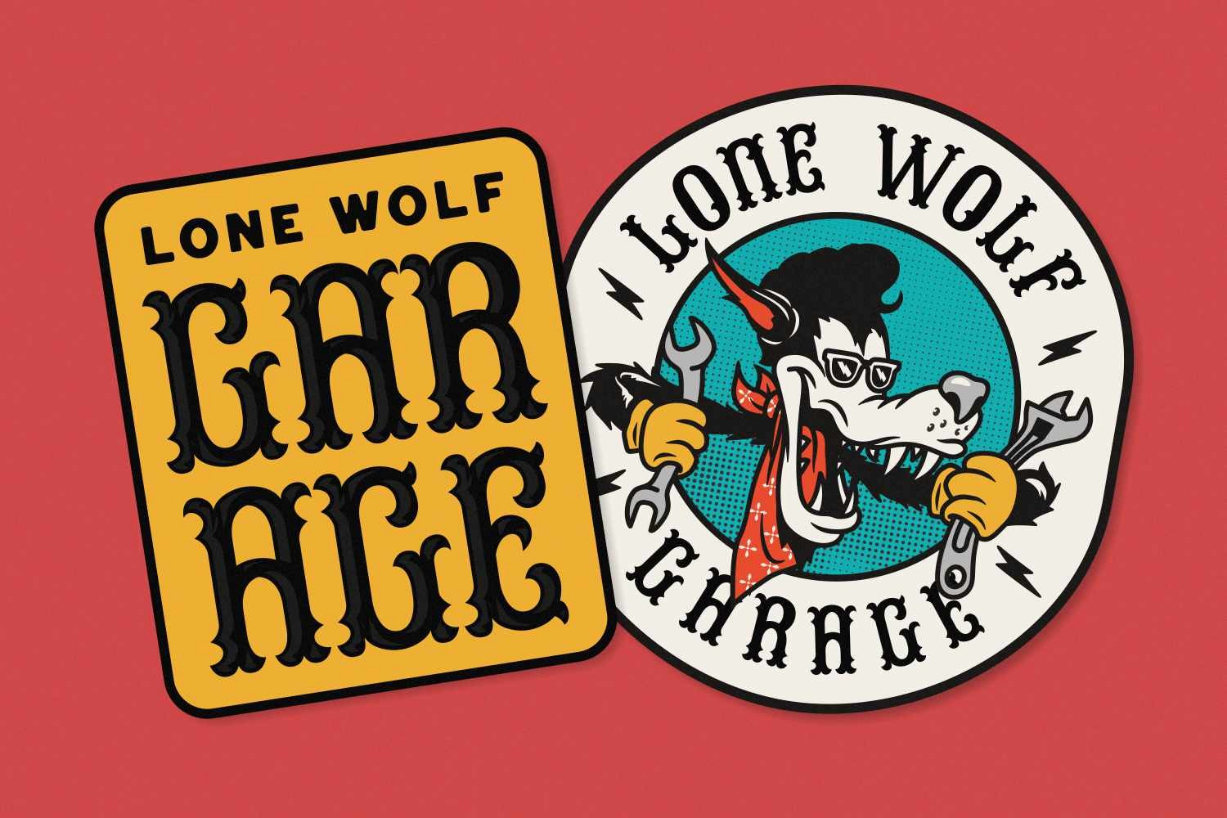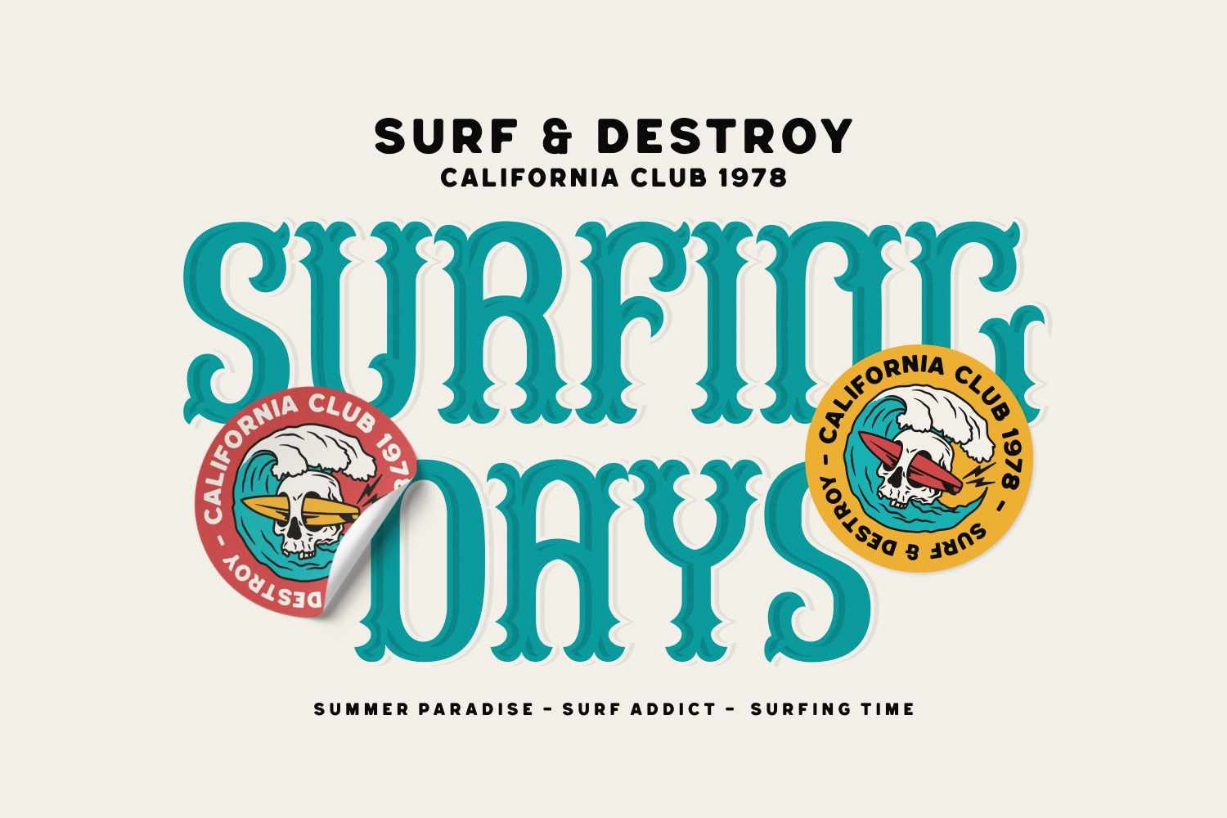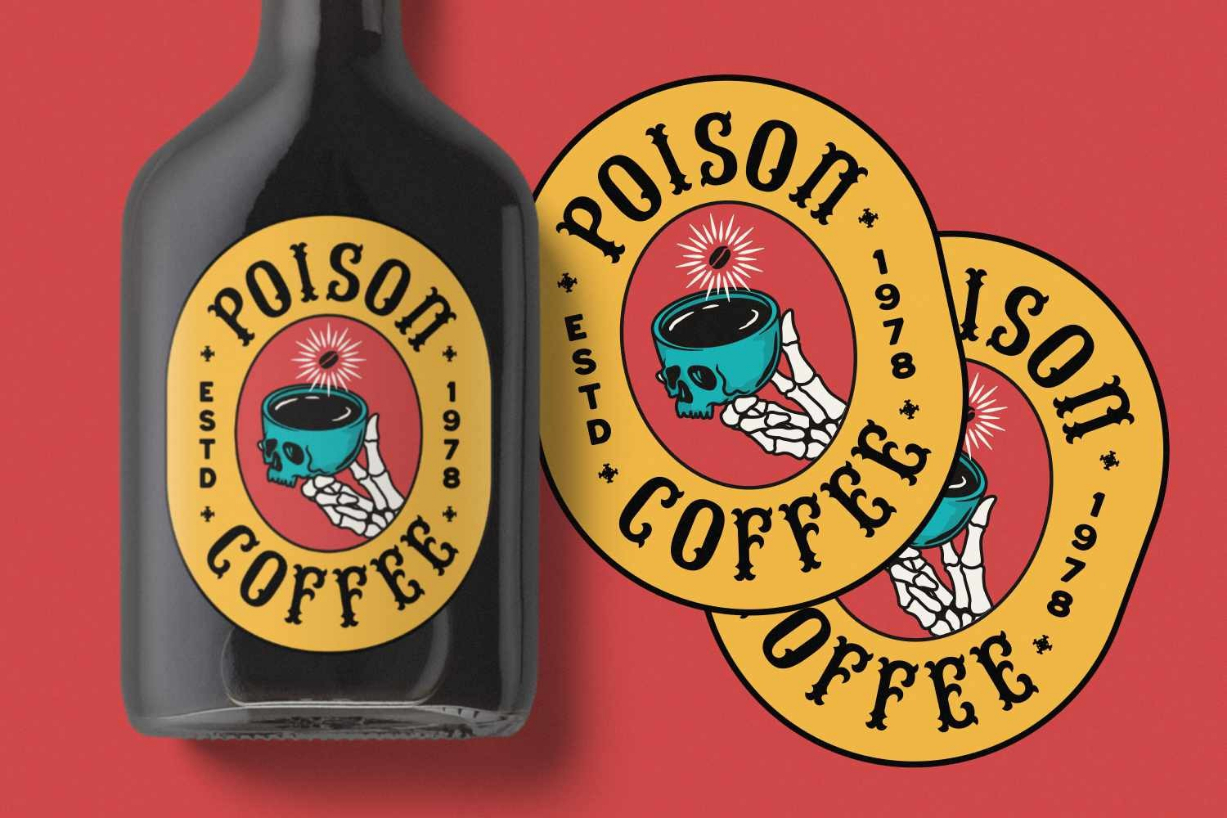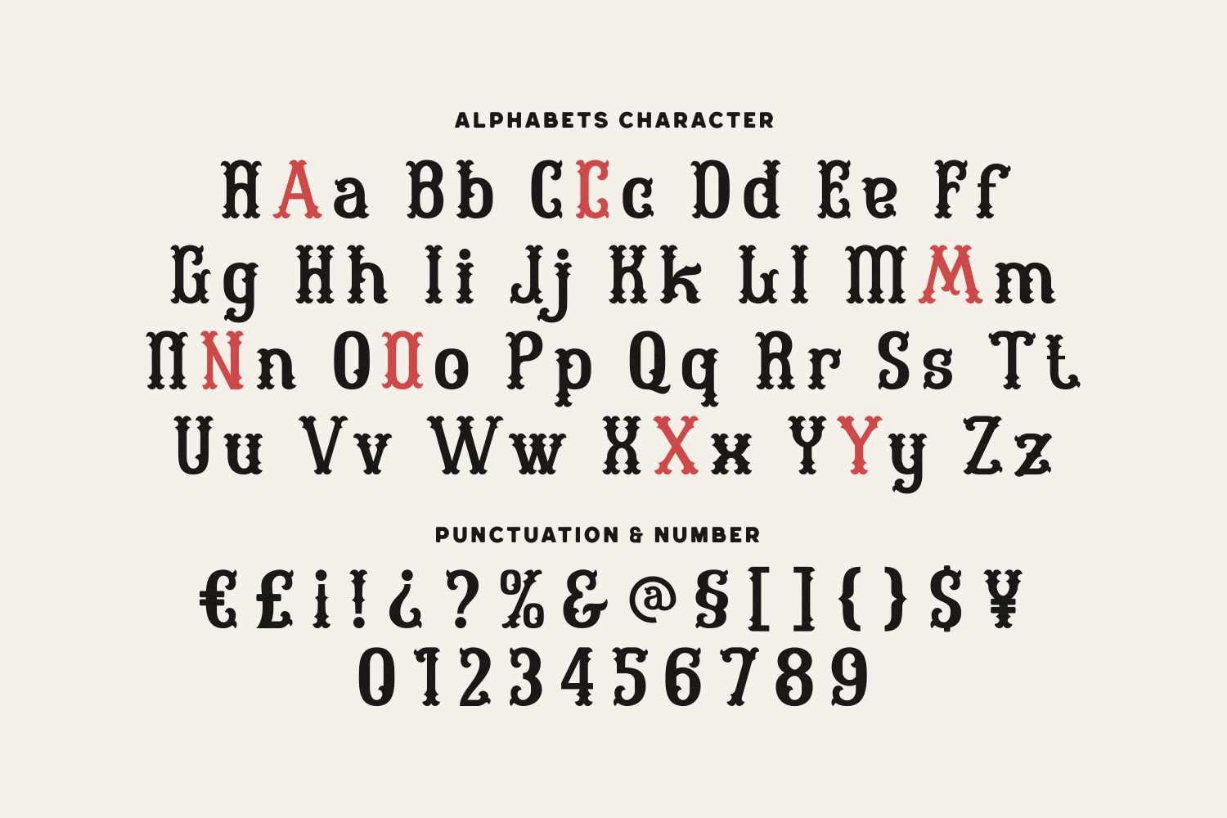
Nosieg Font
About Nosieg Font
Nosieg is a modern blackletter font. This typeface has smooth curves and a visual style that embodies charm and elegance in every lettering, making your work look stunning and attractive.
A versatile font that works in both large and small sizes, suitable for a wide variety of projects such as a display for headings, logos, invitations, branding, magazine, photography, card, product packaging, product mockup, mugs, posters, labels, signatures, editorials, art deco, any type of advertising purpose.